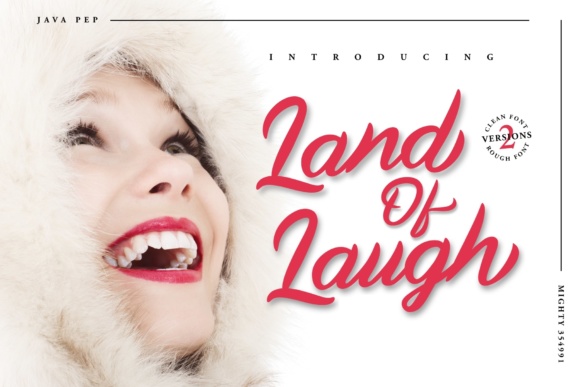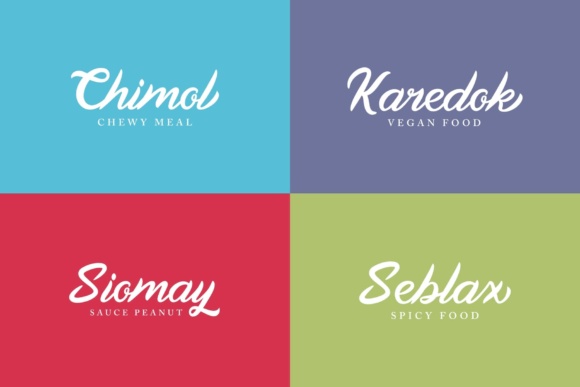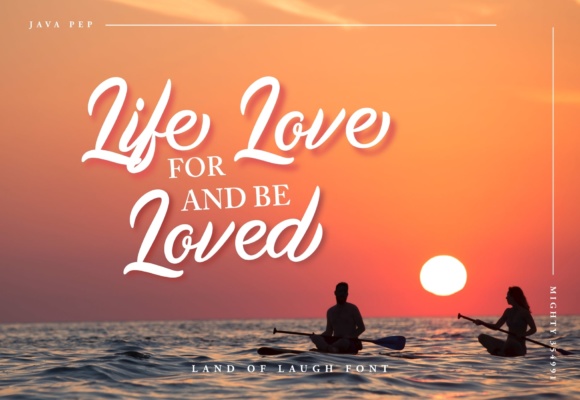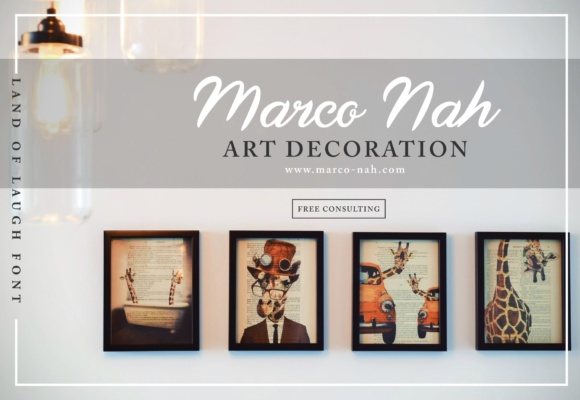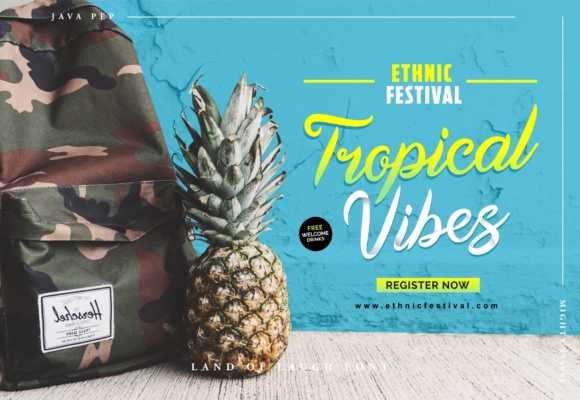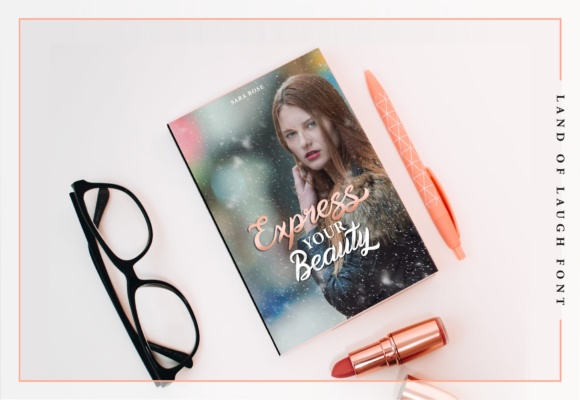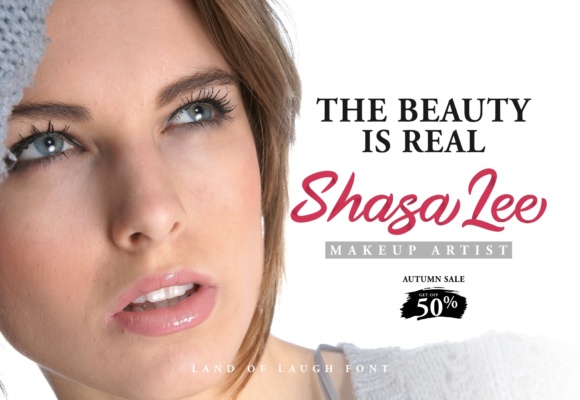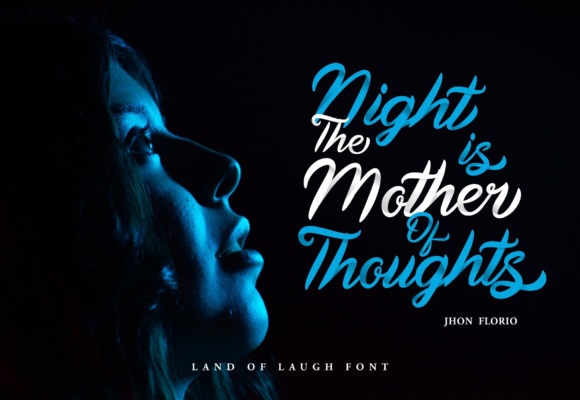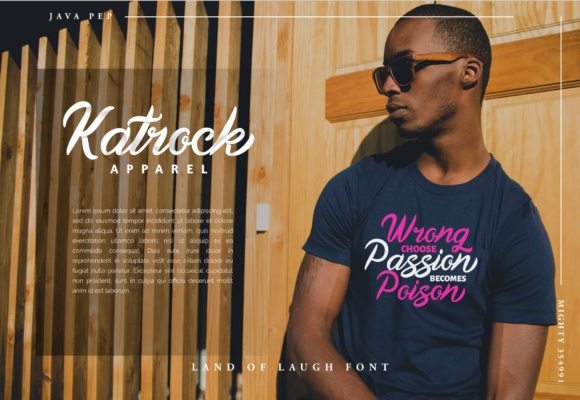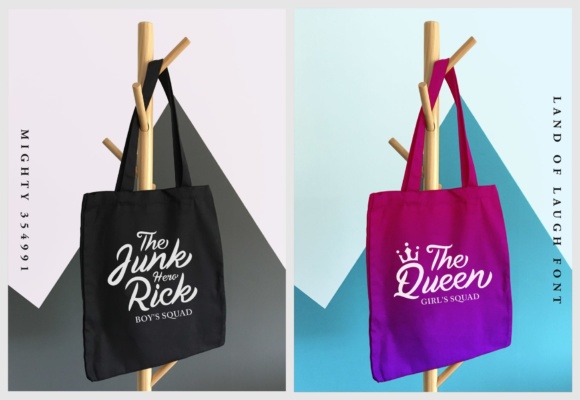
Land of Laugh Font
About Land of Laugh Font
The Land Of Laugh is a beautiful font with a smooth and clean style. It is flexible enough to be placed in modern and vintage designs. For a modern look you can combine it with serif fonts and for a classic vintage look you can combine it with sans serifs.